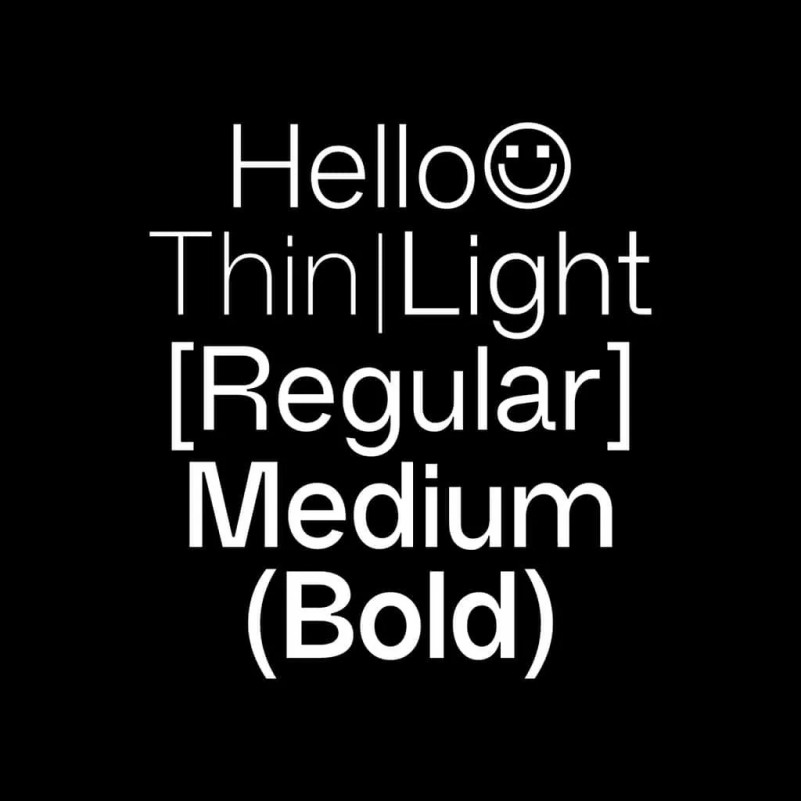
Non Natural Grotesk Font
Non Natural Grotesk Sans Serif Font first presents as pretty straightforward. But, what’s so compelling about this typeface is that it only takes a millisecond and you’re drawn into its fascinating details and deviations from conformity.
Designed by Jonathan Saucedo, intricate, subtle touches—such as the width of the counters and comfortable, breathable apertures—mean that throughout weights and sizes, Non Natural Grotesk sits calmly and confidently. The typeface has great legibility and good contrast between black and white, making it stunningly versatile; showing off its seamless combination of contemporary details and classic styles.